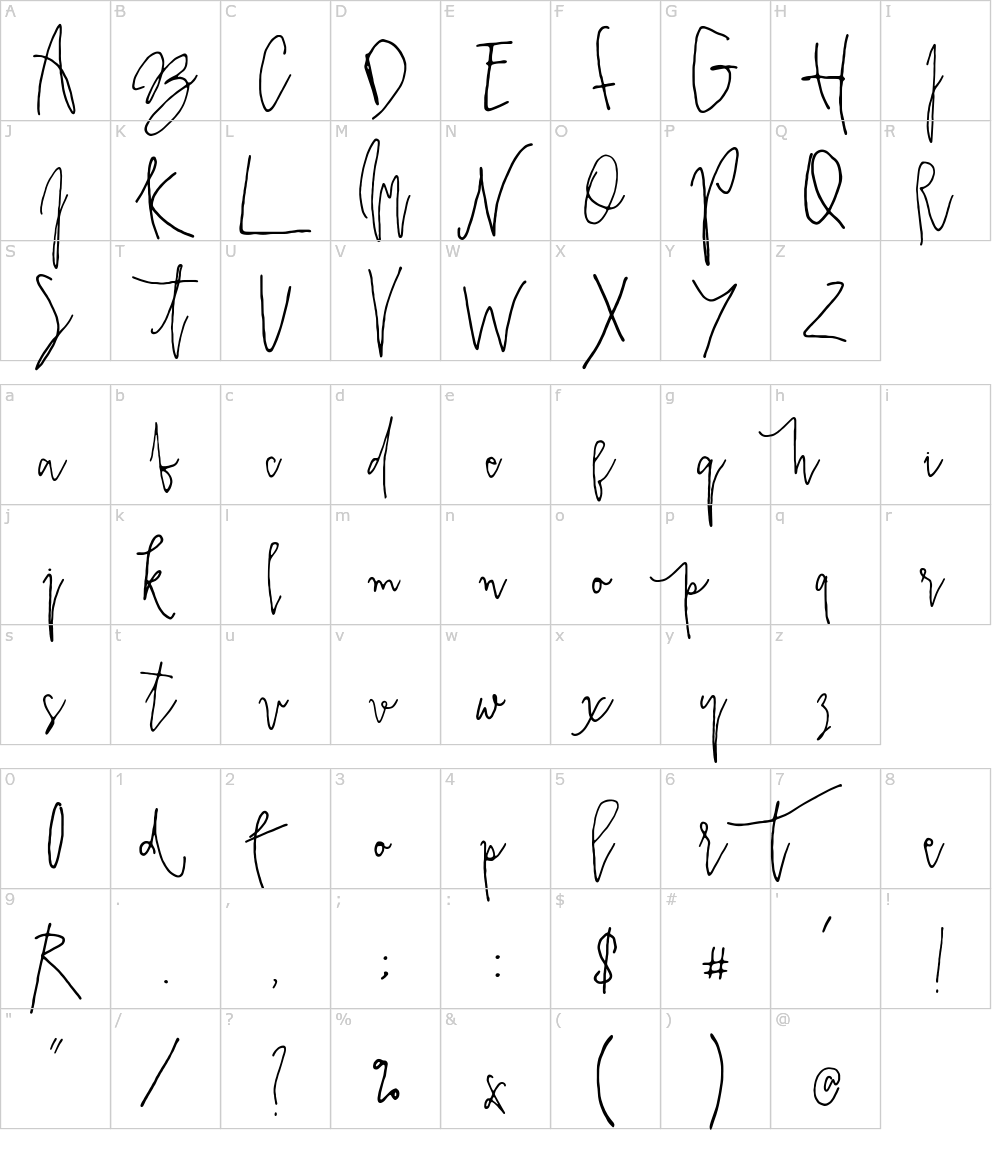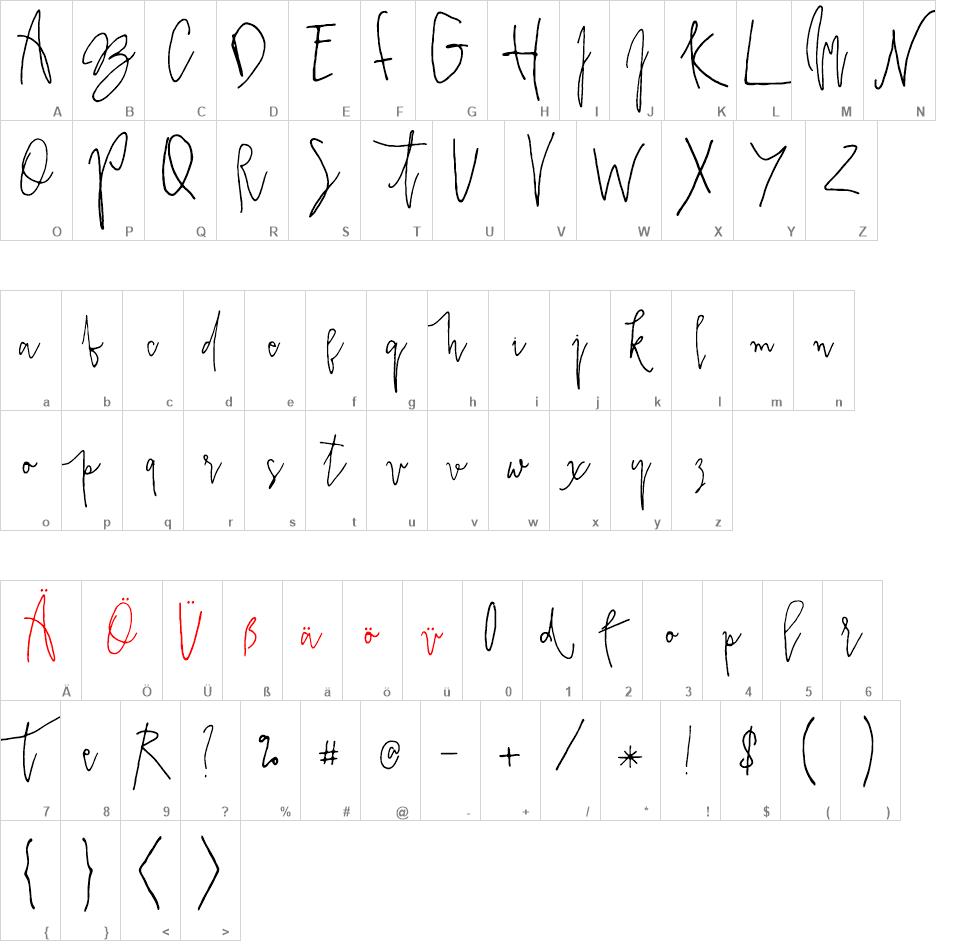
Prestigious Fonts. Free fonts often have not all characters and signs, and have no kerning pairs (avenue ↔ a venue, tea ↔ t ea). Luxury fonts create a sense of elegance, class and prestige.
Prestigious is a luxurious and elegant display font. That is both classically elegant and modern. Check it for free with typograph.
That Is Both Classically Elegant And Modern.